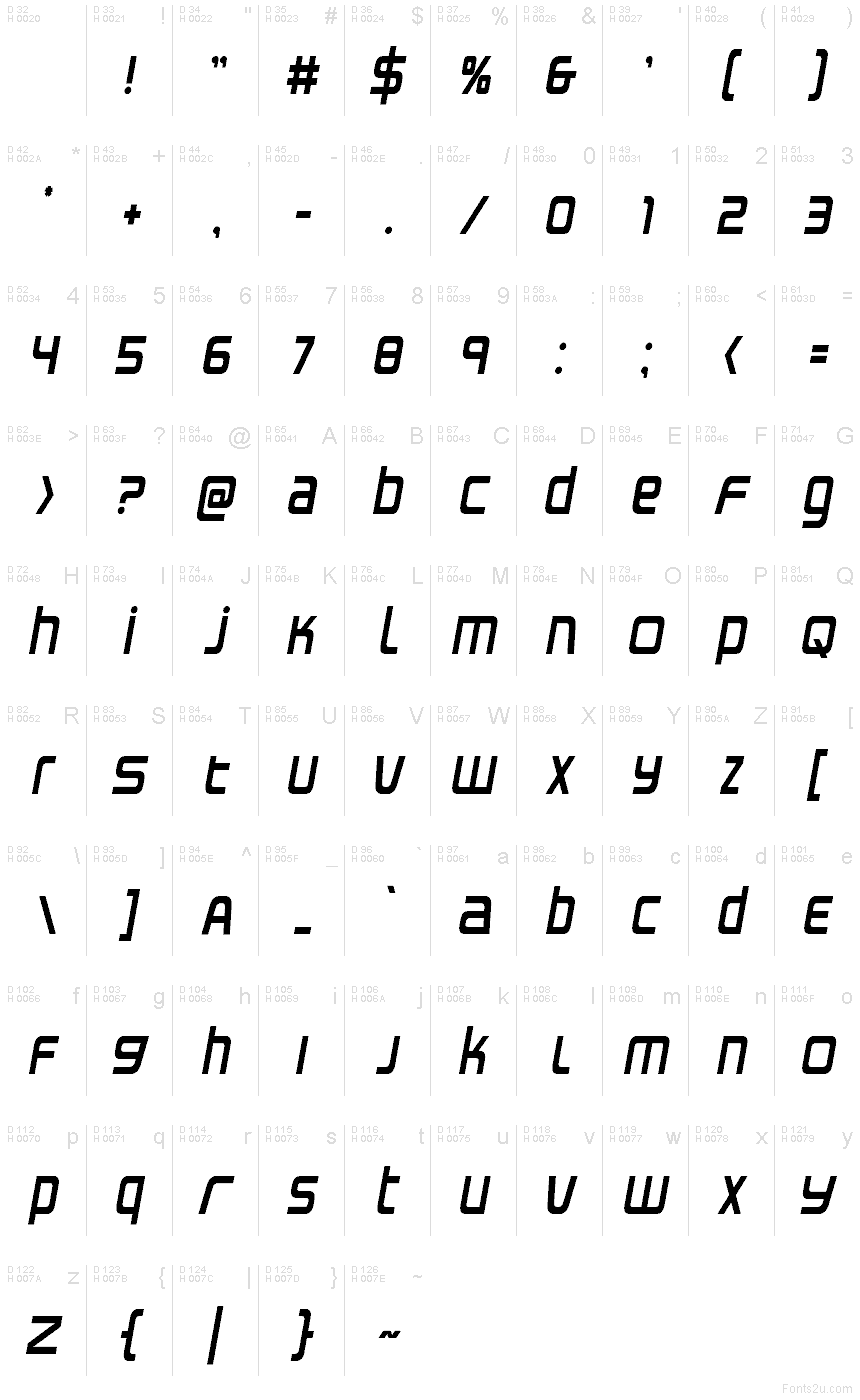
Iconoplastic Condensed Semi-It
Iconoplastic Condensed Semi-Italic font by Iconian Fonts is a free condensed semi-italic futuristic display font. Built within the Iconoplastic family, it leans forward with aerodynamic momentum—tight rhythm, smooth rounded corners, and squared bowls that read crisp even at speed. That compact width solves a familiar headache: fitting long names and high-impact headlines into narrow layouts without losing that sci‑fi snap.
Using Iconoplastic Condensed Semi-Italic, you’ll get clean, fast visuals that shine on sci‑fi posters, esports wordmarks, streaming overlays, HUD/UI labels, tech conference banners, and gadget packaging. The consistent stroke weight keeps busy compositions calm, while the slanted forms inject urgency. Pair this free font with a neutral grotesk for body copy, and add a touch of tracking at large sizes to let the condensed shapes breathe.